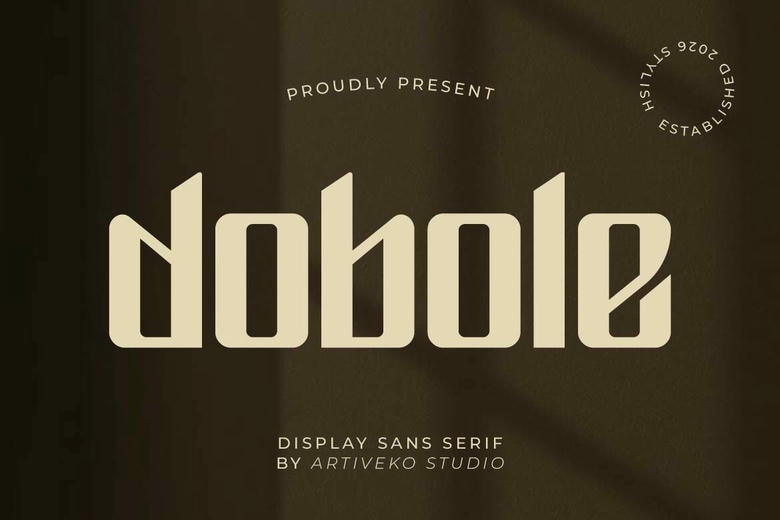
Dobole Font
Dobole is a geometric display font inspired by the bold architecture, elegant symmetry, and unique lettering of the Art Deco era. It features a tall shape, clean lines, sharp diagonal cuts, and rounded inner details.
Dobole Display Font